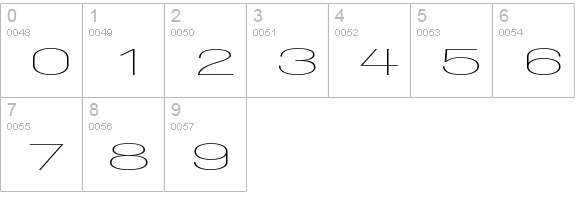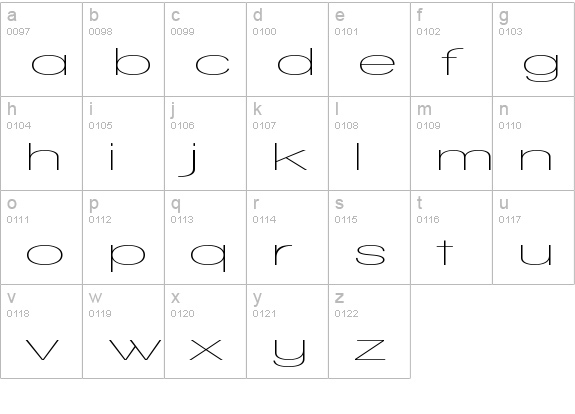
Introducing Walkway UltraExpand, a captivating and versatile font that effortlessly combines modernity with a touch of urban flair. This font is the ultimate choice for designers seeking to make a bold statement, as its elongated and expanded letterforms exude confidence and creativity. With its sleek and stylish appearance, Walkway UltraExpand is perfect for a wide range of design projects, from eye-catching logos and branding materials to striking headlines and attention-grabbing advertisements. Its unique letter shapes and generous spacing create a harmonious balance between readability and visual impact, ensuring that your message will be conveyed with utmost clarity and professionalism. But what sets Walkway UltraExpand apart from the rest is the fact that it is freely available to download at FontsMarket.com. Yes, you read that right – this incredible font can be yours without spending a dime. FontsMarket.com offers a vast collection of high-quality fonts, and Walkway UltraExpand is just one of the gems waiting to be discovered. Whether you're a seasoned graphic designer or a budding enthusiast, Walkway UltraExpand's versatility and accessibility make it an invaluable addition to your font library. Its wide range of weights and styles allows for endless creative possibilities, ensuring that you'll always find the perfect fit for your project. Embrace the power of Walkway UltraExpand and let your designs soar to new heights. Download this remarkable font today from FontsMarket.com and unleash your creativity like never before.